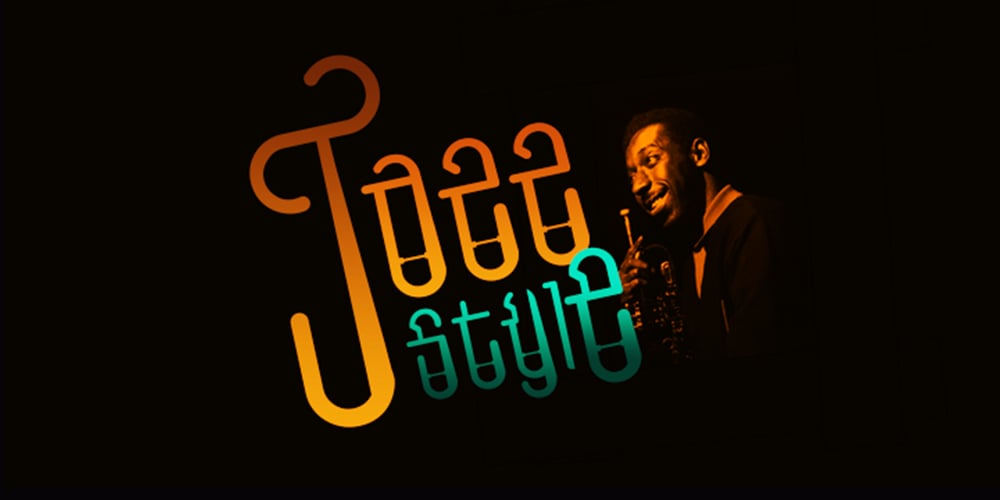
Trumpet Note Font Family was designed by published by Rodrigo Ortiz. Trumpet Note contains 1 styles and family package options. The Trumpet is based on Art Deco style where the type is taken from the basis of the morphology of the trumpet instrument. It has a single weight, and is ideal to use in large sizes as well as headlines or headings. This font has Upper and Lower Case box, numbers and symbols suitable for the use of U.S. and European characters.